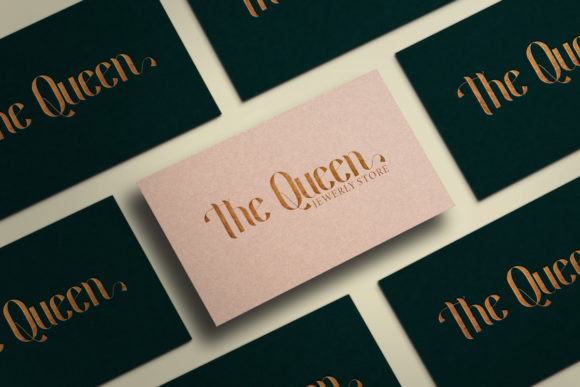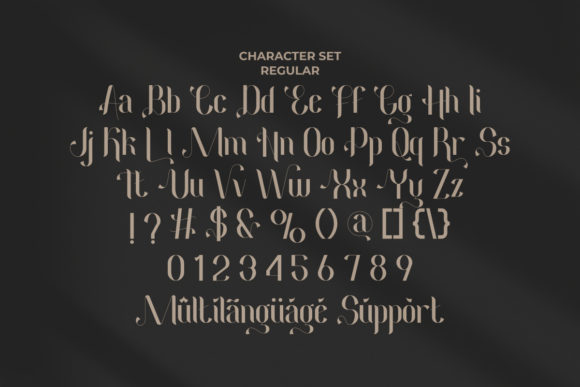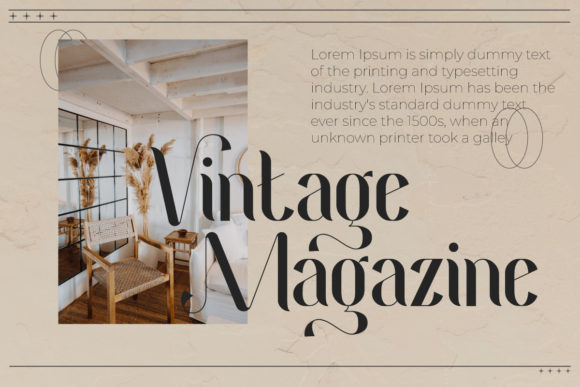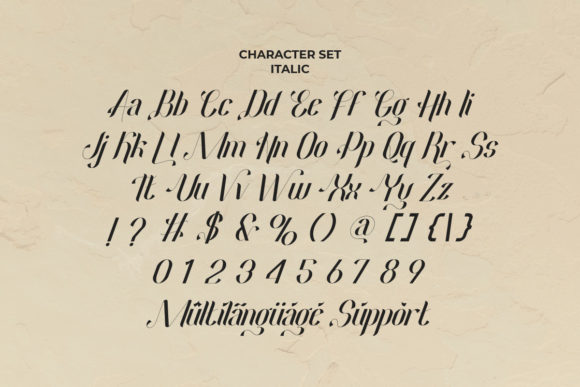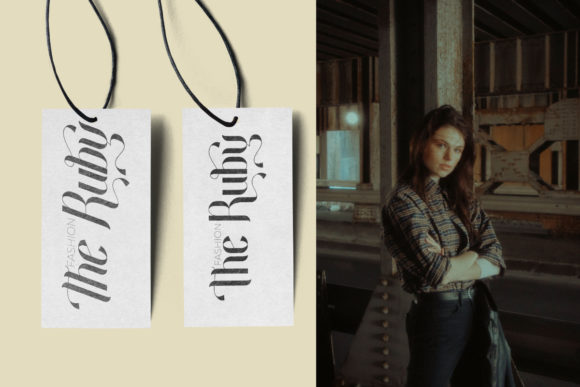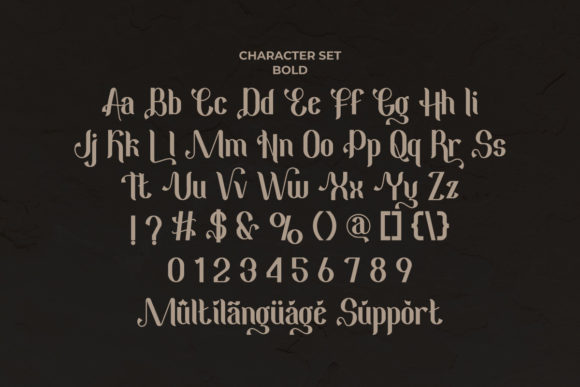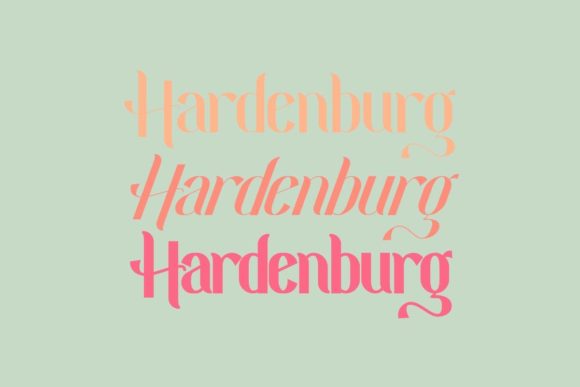
Hardenburg Font: Elevate Your Creations with Style
Are you looking for a font that will take your designs to the next level? Look no further than Hardenburg Font. This beautiful and stylish display font is perfect for crafters, designers, and anyone looking to add a touch of elegance to their creations. In this article, we’ll dive into the features and benefits of Hardenburg Font and explore how it can elevate your designs.
What is Hardenburg Font?
Hardenburg Font is a trendy and unique display font that is sure to make your designs stand out. Its stylish and elegant design makes it perfect for a variety of projects, from crafting and scrapbooking to branding and advertising. With its bold and eye-catching appearance, Hardenburg Font is sure to grab attention and leave a lasting impression.
Key Features of Hardenburg Font
So, what sets Hardenburg Font apart from other fonts? Here are some of its key features:
- PUA Encoded: Hardenburg Font is PUA (Private Use Area) encoded, which means that you can access all of the glyphs and swashes with ease. This makes it easy to customize your designs and add your own personal touch.
- Trendy and Unique: Hardenburg Font has a trendy and unique design that will set your creations apart from the rest. Its stylish appearance is sure to impress and leave a lasting impression.
- Display Font: Hardenburg Font is a display font, which means that it’s perfect for headlines, titles, and other large text elements. Its bold and eye-catching appearance makes it perfect for grabbing attention and drawing the eye.
Benefits of Using Hardenburg Font
So, why should you choose Hardenburg Font for your designs? Here are just a few benefits of using this amazing font:
- Elegant and Sophisticated: Hardenburg Font has an elegant and sophisticated design that will add a touch of class to your creations. Whether you’re designing for a client or working on a personal project, this font is sure to impress.
- Easy to Use: Hardenburg Font is easy to use and customize, even for those with limited design experience. Its PUA encoding makes it easy to access all of the glyphs and swashes, and its clear and simple design makes it easy to read and understand.
- Versatile: Hardenburg Font is versatile and can be used for a variety of projects, from crafting and scrapbooking to branding and advertising. Its bold and eye-catching appearance makes it perfect for grabbing attention and drawing the eye.
How to Use Hardenburg Font
So, how can you use Hardenburg Font in your designs? Here are a few ideas to get you started:
- Crafting and Scrapbooking: Hardenburg Font is perfect for crafting and scrapbooking projects, such as card making, journaling, and photo albums. Its elegant and sophisticated design makes it perfect for adding a touch of class to your creations.
- Branding and Advertising: Hardenburg Font is also perfect for branding and advertising projects, such as logos, brochures, and flyers. Its bold and eye-catching appearance makes it perfect for grabbing attention and drawing the eye.
- Digital Design: Hardenburg Font can also be used for digital design projects, such as social media graphics, blog posts, and website headers. Its clear and simple design makes it easy to read and understand, even on small screens.
In conclusion, Hardenburg Font is a beautiful and stylish display font that is perfect for crafters, designers, and anyone looking to add a touch of elegance to their creations. Its trendy and unique design, PUA encoding, and versatility make it a must-have font for any designer or crafter. Whether you’re working on a personal project or designing for a client, Hardenburg Font is sure to elevate your creations and leave a lasting impression.